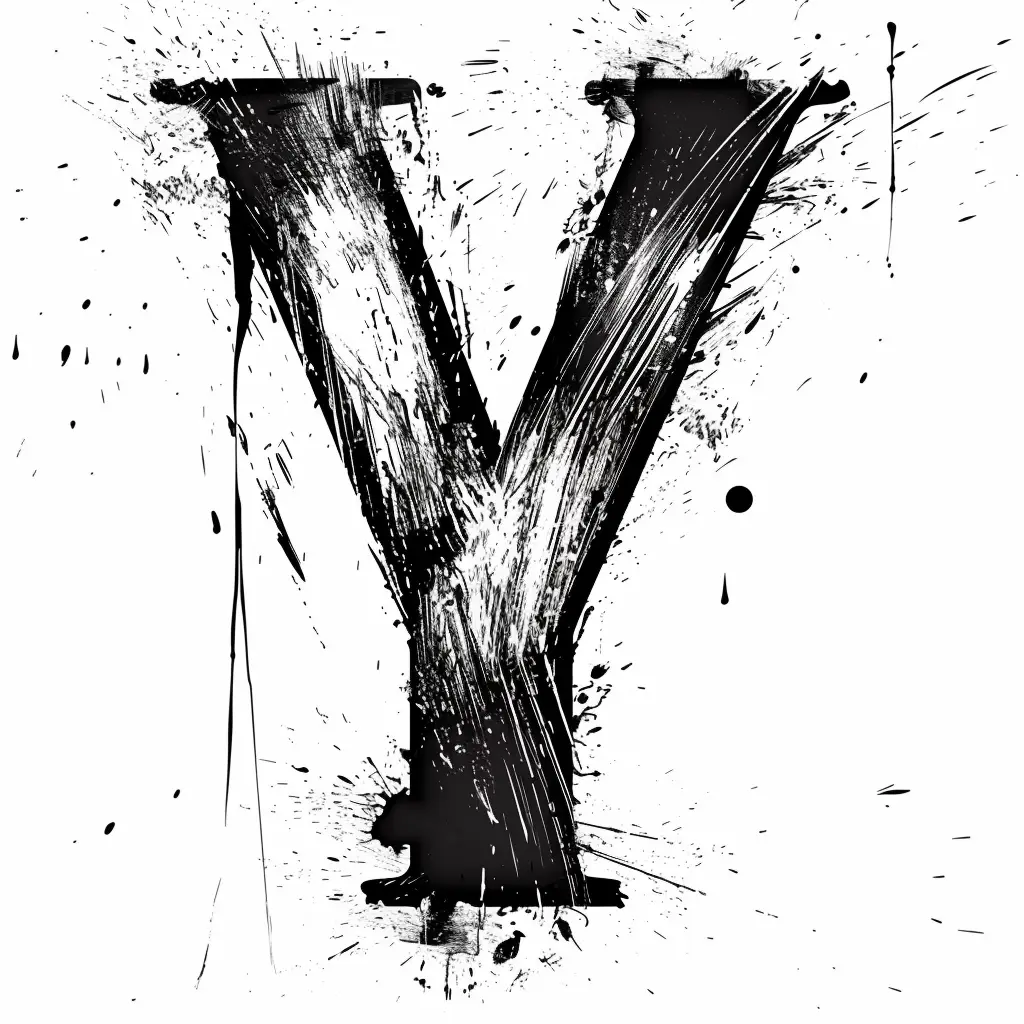
The image features a bold, stylized letter "Y" rendered in black against a white background. The letter has a textured, splattered appearance with dynamic ink splatters, drips, and brushstroke details, giving it a raw, artistic, and slightly chaotic aesthetic. The high-contrast black-and-white color scheme emphasizes the letter’s dramatic, expressive design.